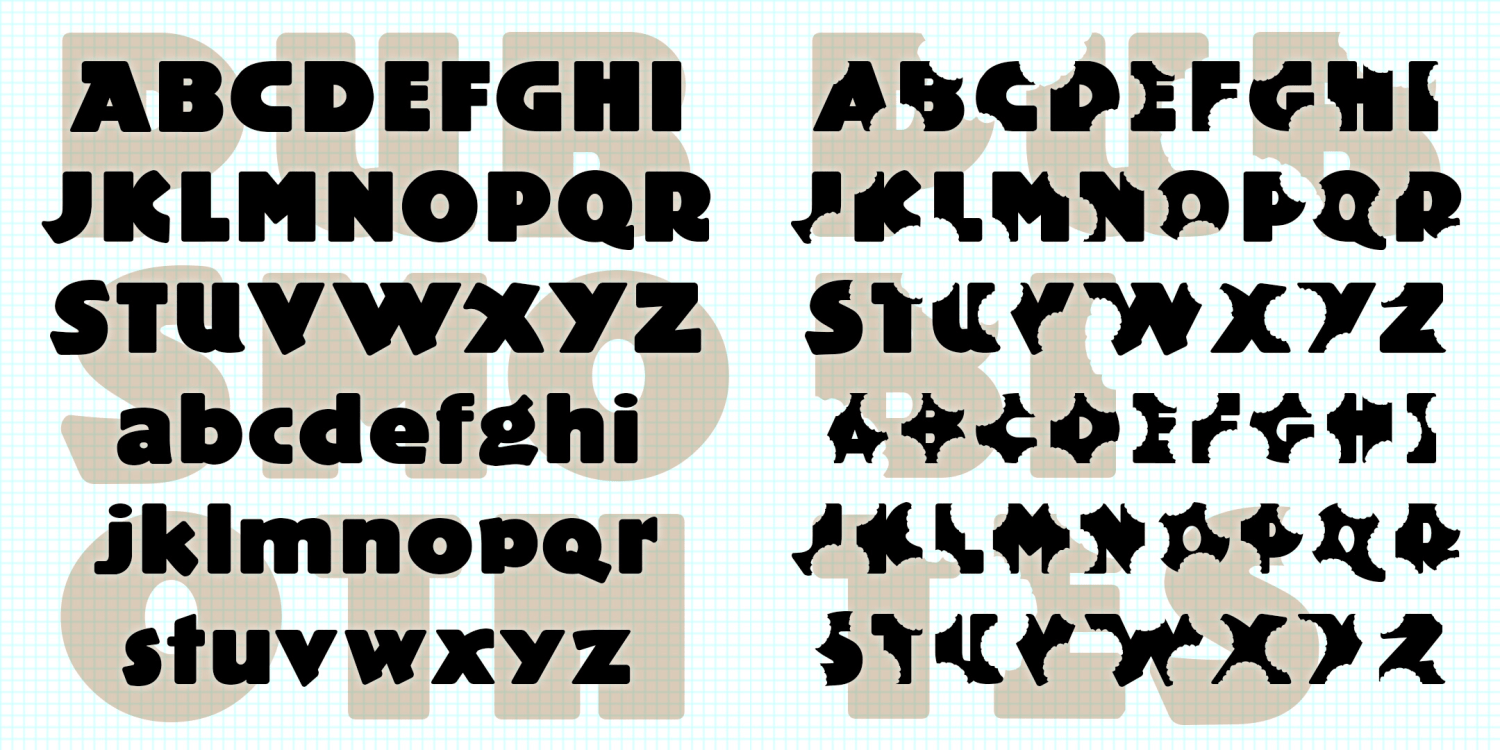
Pub Smooth & Pub Bites
PUB SMOOTH was inspired by the classic font Publicity Gothic, which was "based on the sturdy woodcut display faces of the late 19th century." Remarkable for its fat, friendly letterforms and bumpy outline. Adobe sells a fine version and if that's what you want, buy it from them, as I did. In using Publicity Gothic, I realized that the bumpy outlines didn't work well on-screen and at smaller sizes in print. So I completely redrew the font with smooth clean edges and corners. I've tried to remain faithful to the spirit of the original design. Just for fun, the set now includes Pub Bites with chomps taken out! Uppercase forms only, extra bitten forms in the lowercase positions.
Pub Smooth
Pub Bites